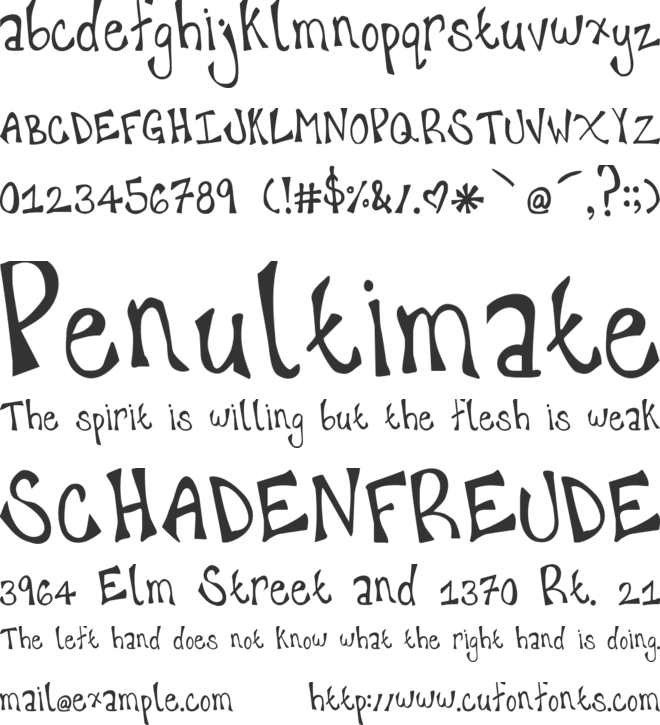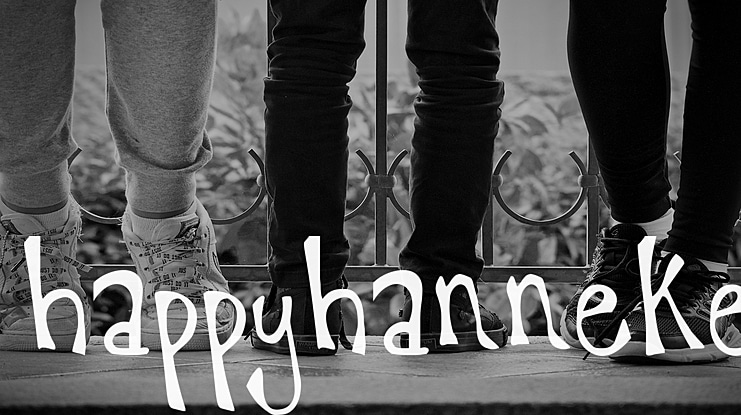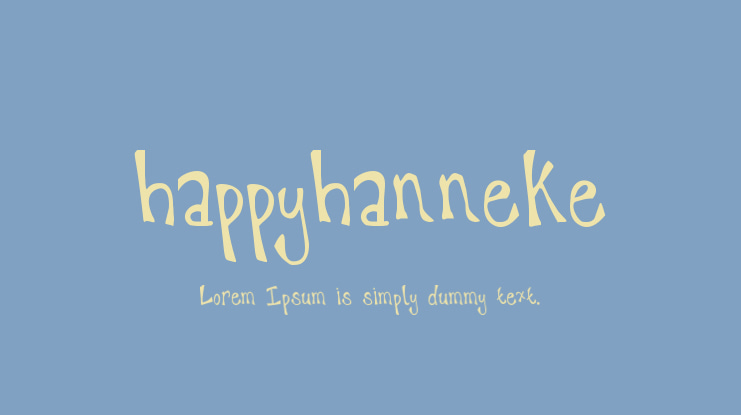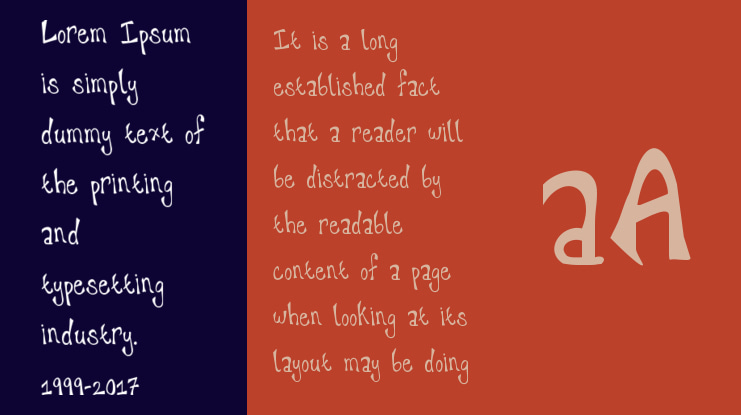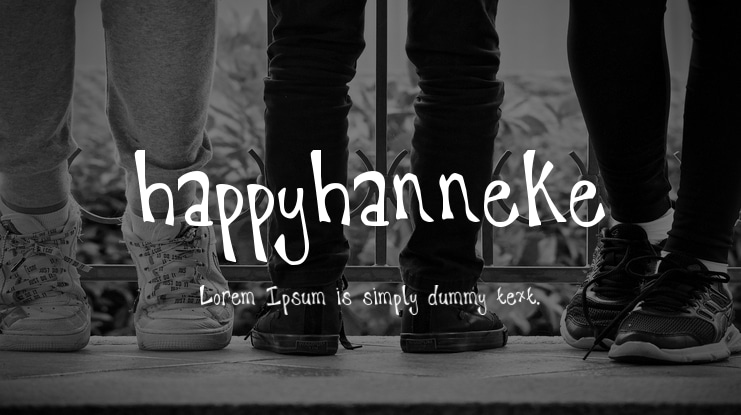
happyhanneke Font
Kimberly Geswein
This font was created with the writing of a talented Dutch student. The name of the font is inspired by her name and her witty sense of humor.